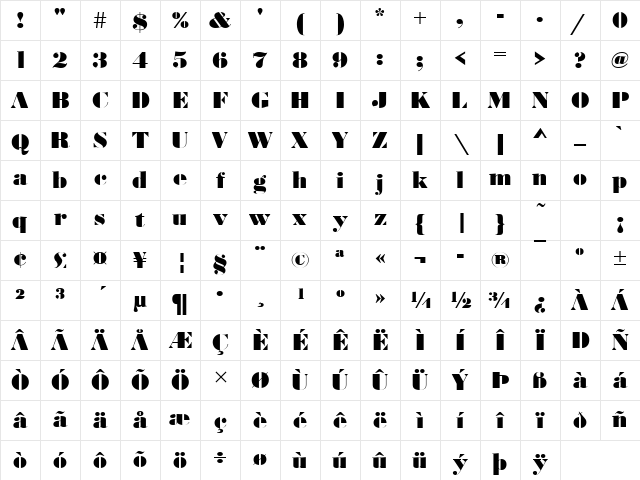
Complete Bodoni Becker No2 Ultra Regular glyph index. Displaying only characters natively supported by Bodoni Becker No2 Ultra Regular font.
Bodoni Becker No2 Ultra is a composed and adaptable typeface that performs quietly and consistently across a wide range of design contexts.
Pro Tip: Use Bodoni Becker No2 Ultra in both headline and body roles to test its range before committing to a single application.